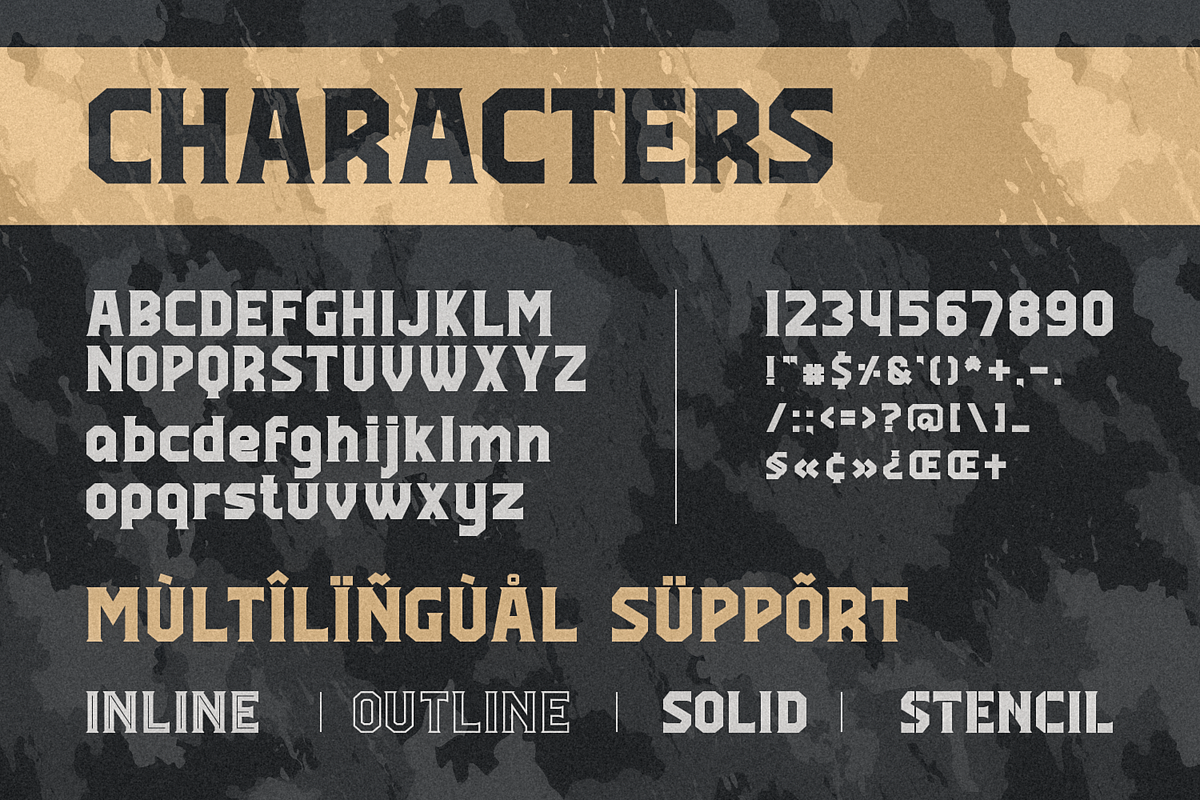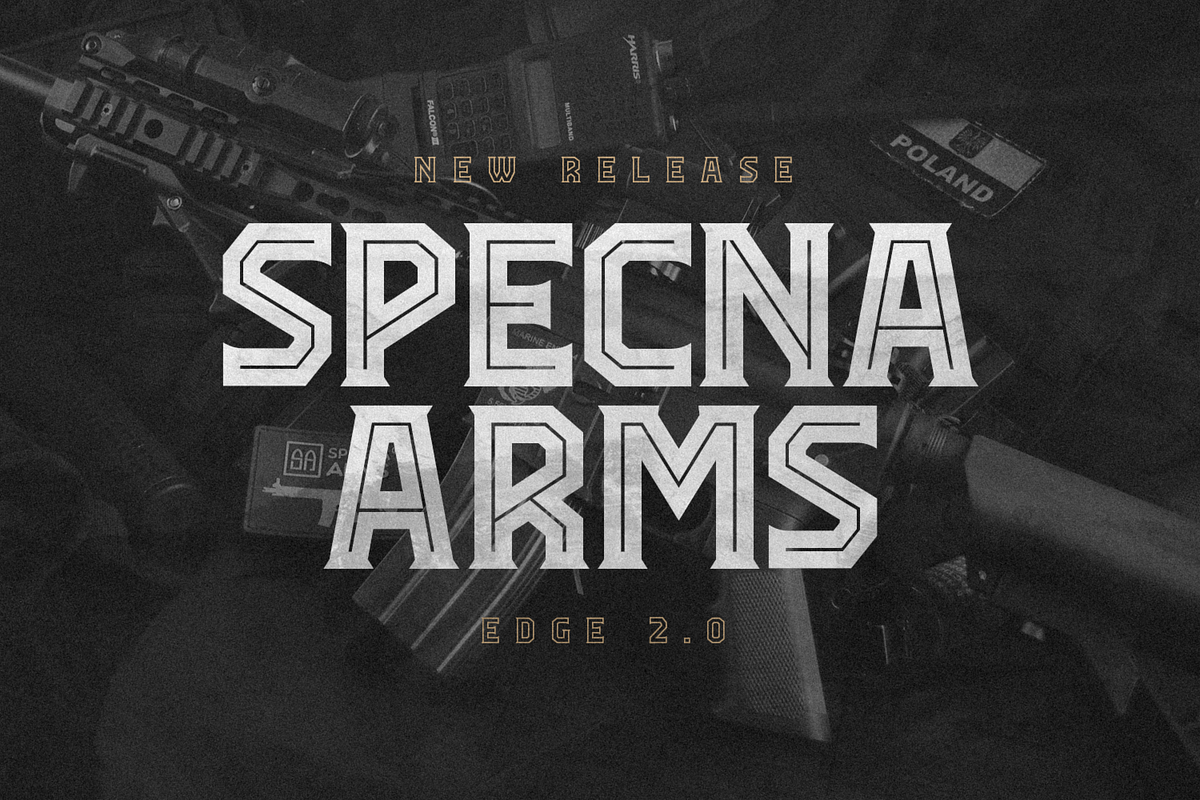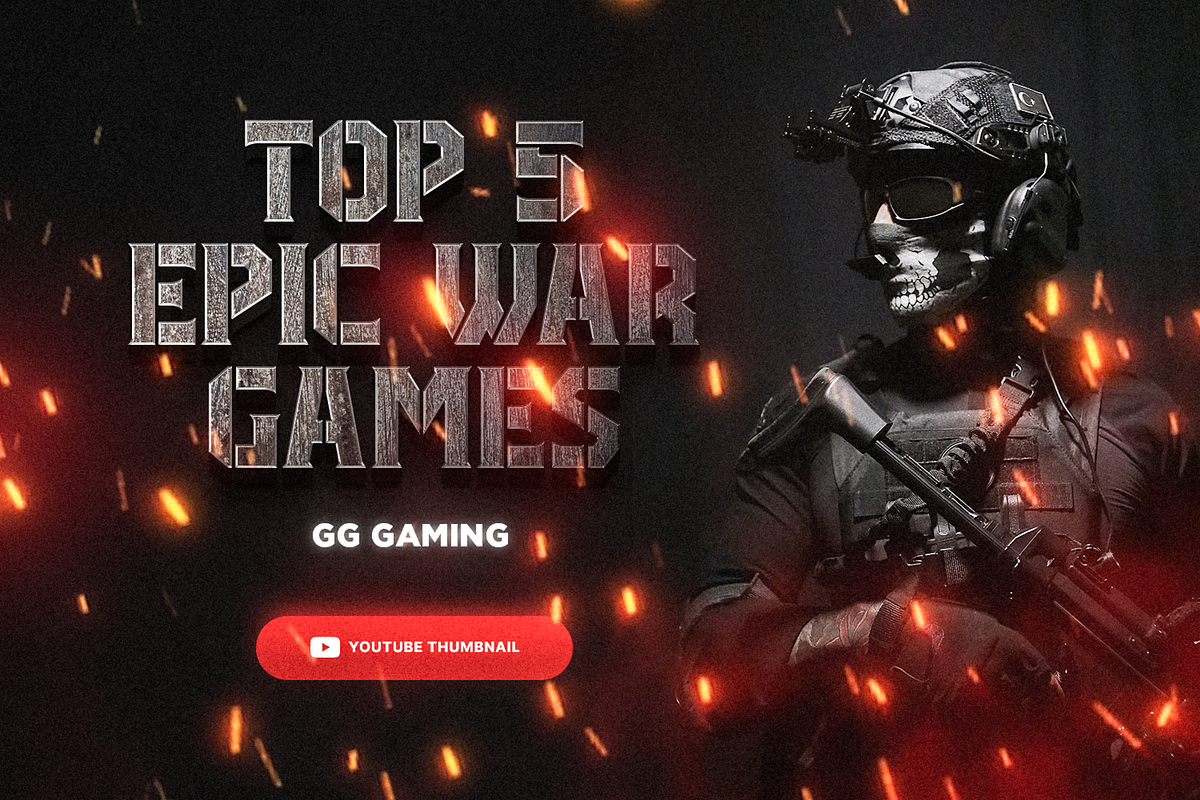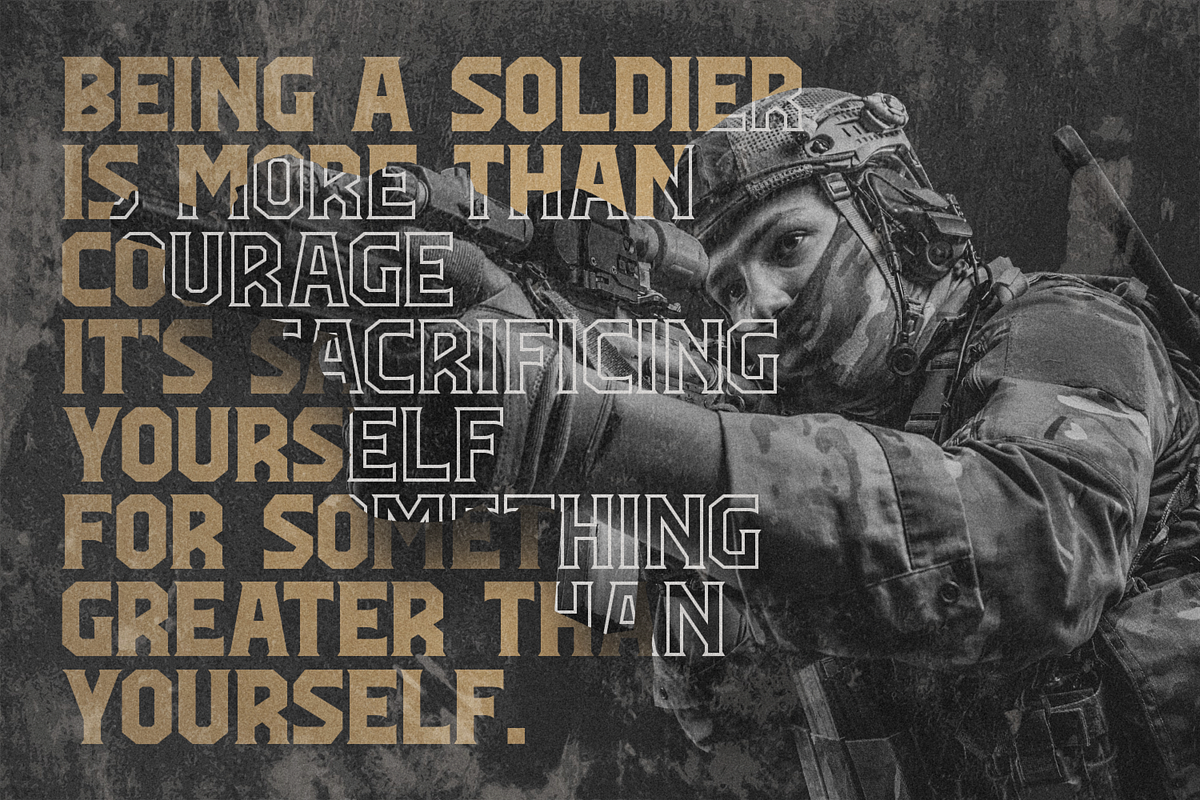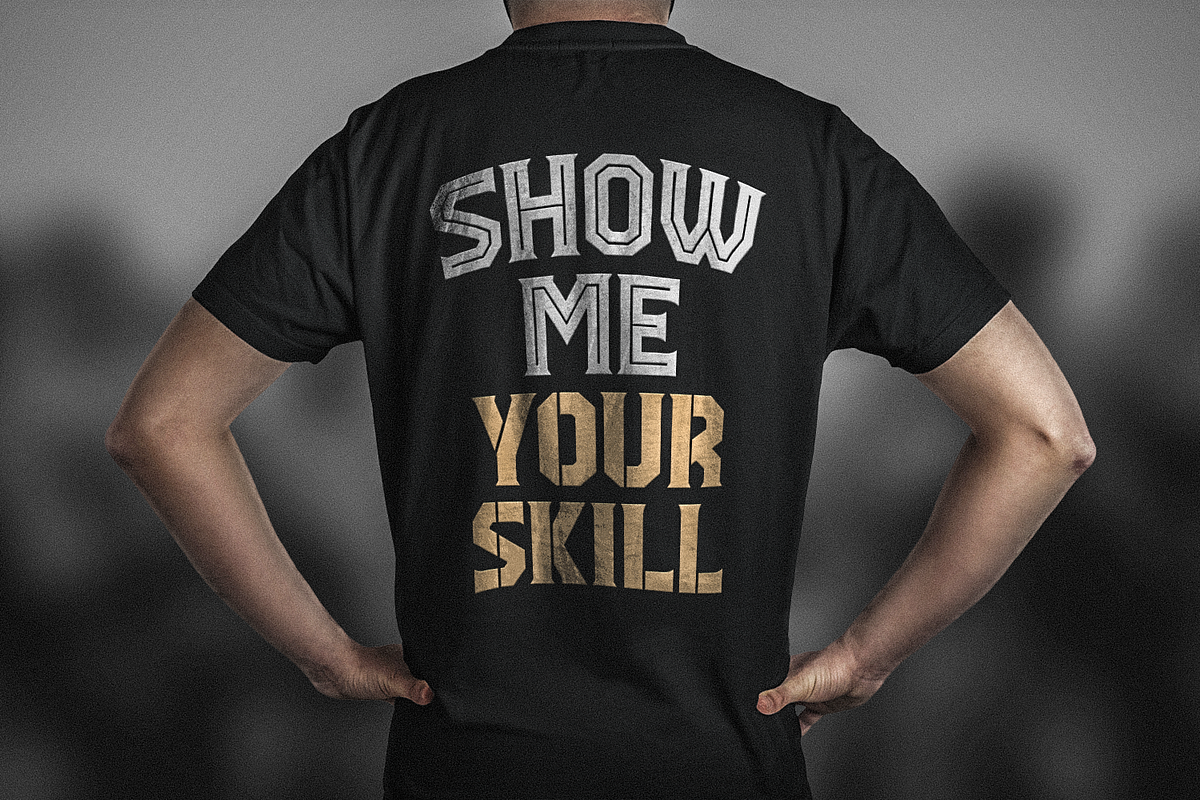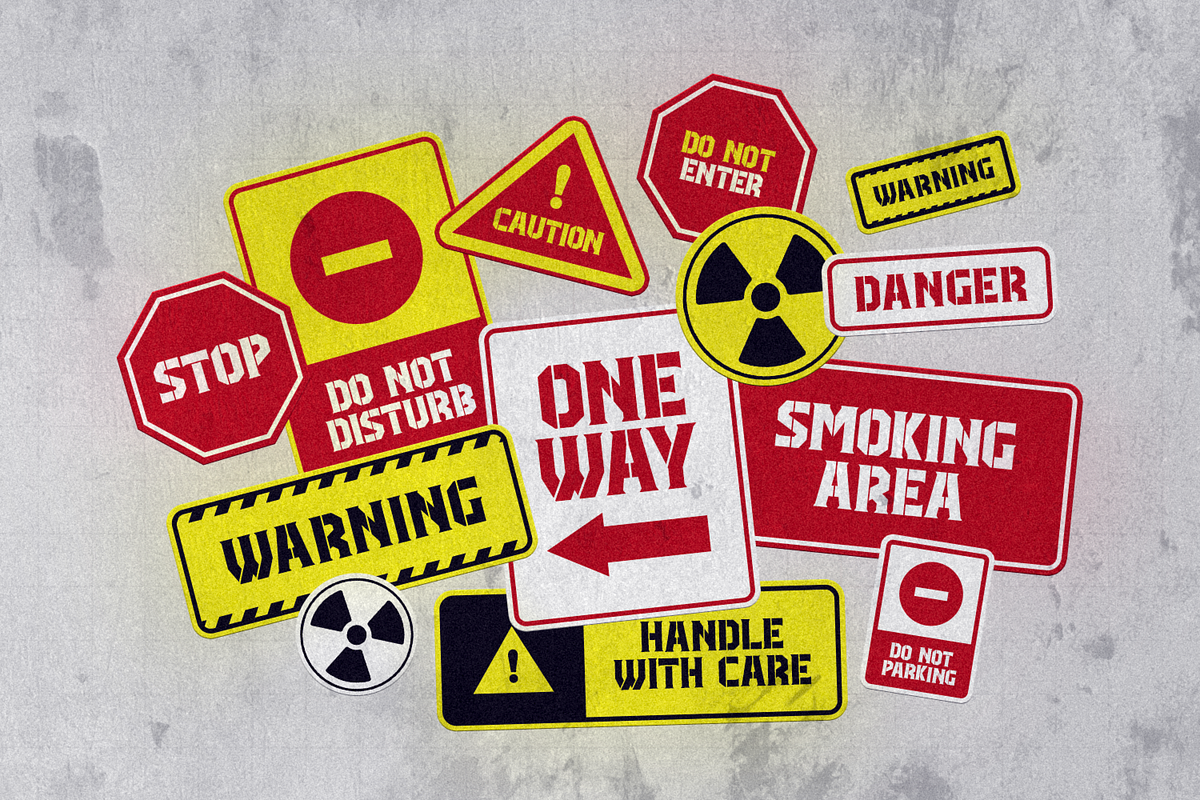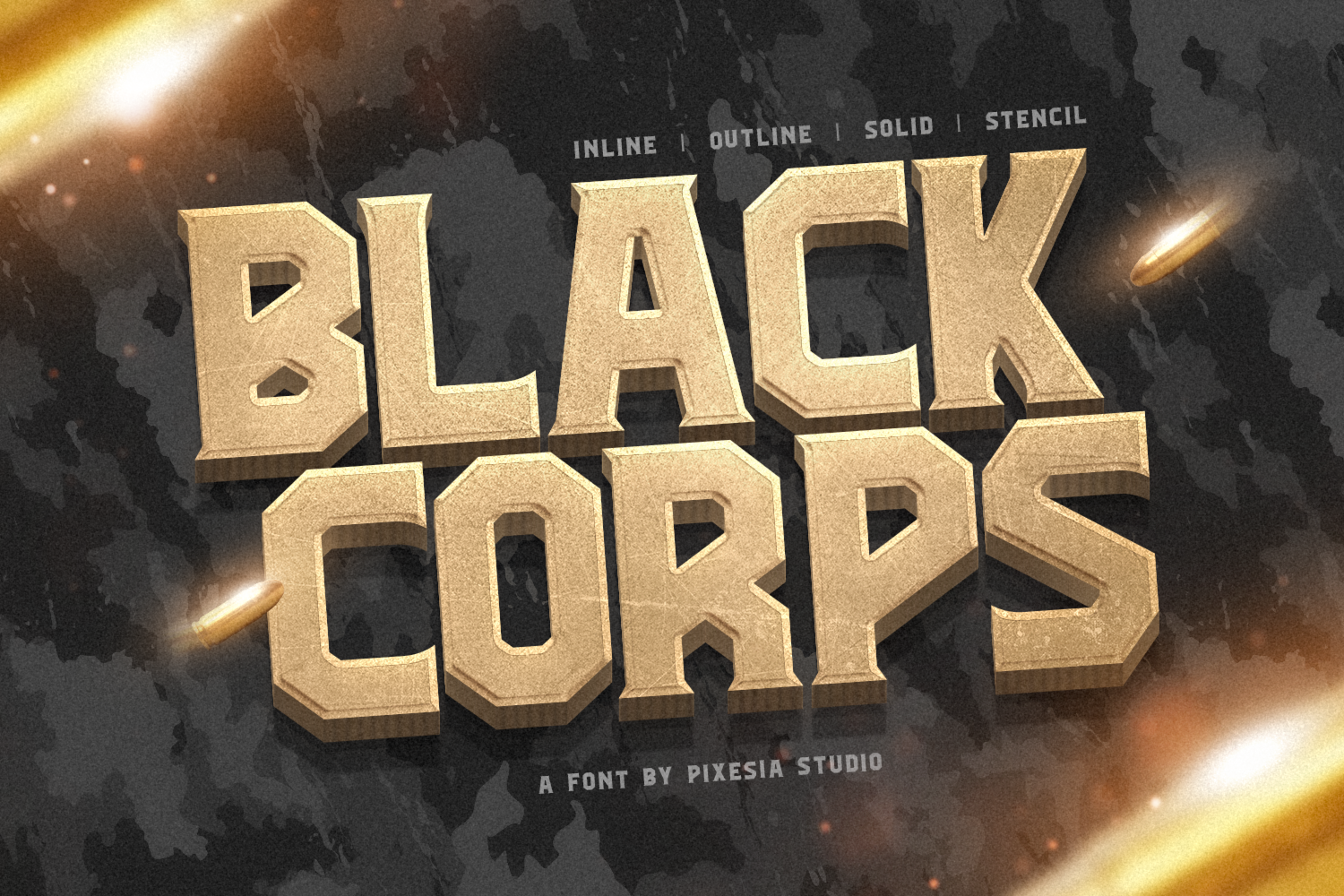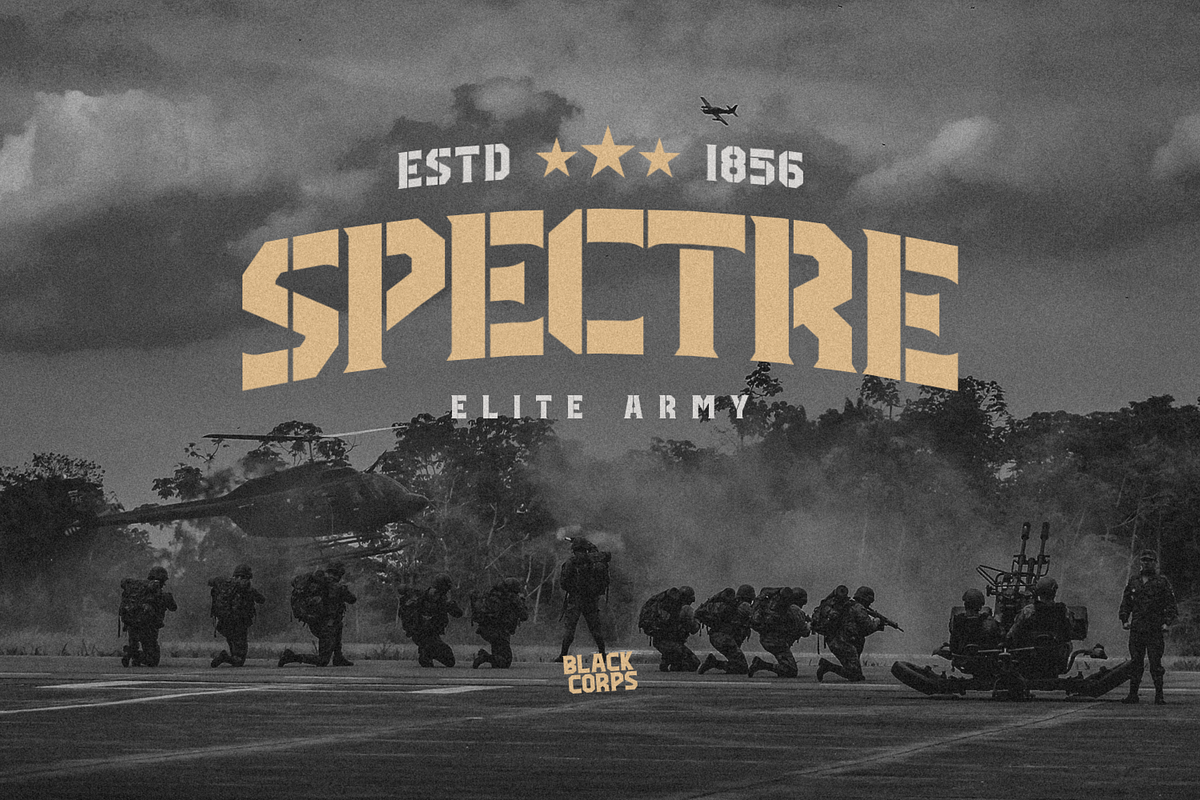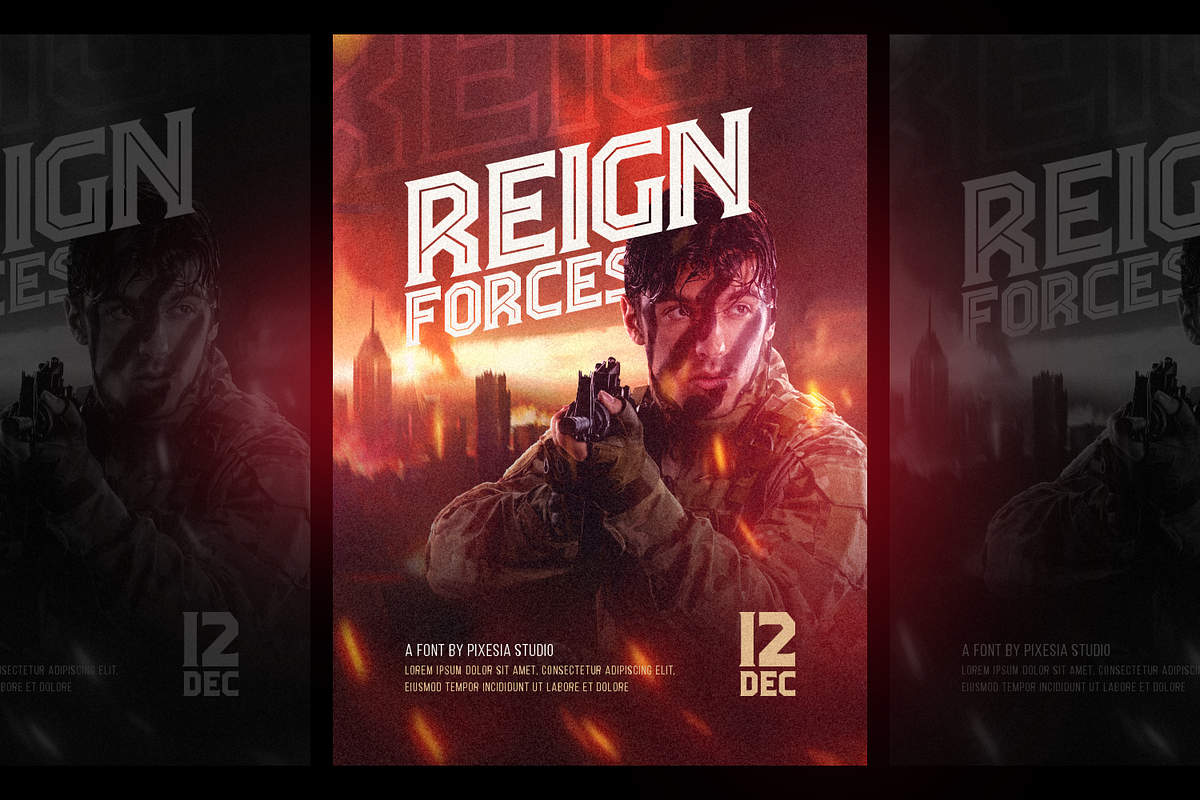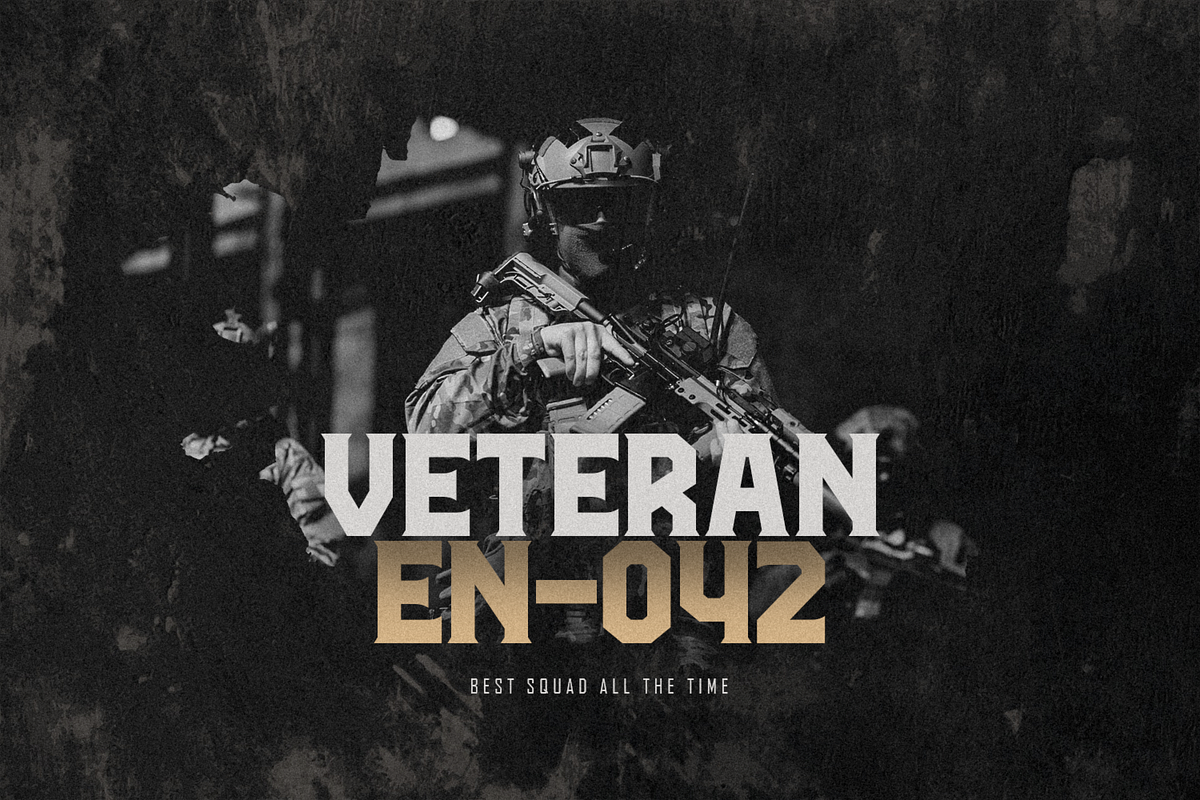
Black Corps - Military Serif Font
Introducing Black Corps - Military Serif Font
Black Corps is a powerful and versatile military serif font, inspired by the strength and precision of the armed forces. This font is perfect for creating bold and impactful designs, whether you're working on a military-themed project, or just want to add a touch of authority to your design. With its sleek and modern serifs, Black Corps is a font that commands attention, making it a great choice for headlines, logos, and other attention-grabbing designs. With its extensive character set and versatile design, this font is sure to be a valuable addition to your design toolkit.
- Black Corps Solid
- Black Corps Inline
- Black Corps Outline
- Black Corps Stencil